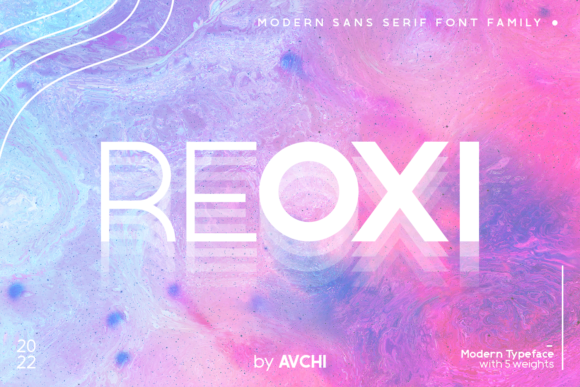
Dive into the realm of Reoxi, a sans serif font that exudes both coolness and modernity. Its minimalist and neat design makes it the perfect choice for those seeking a font that seamlessly blends simplicity and sophistication. Allow your creativity to soar as you utilize Reoxi to craft visually stunning logos, tech creations, and an array of other captivating designs.
With Reoxi, the possibilities are limitless. Its clean lines and legible characters make it ideal for crafting logos that command attention and leave a lasting impression. Whether you're designing for a tech startup, a fashion brand, or a creative agency, Reoxi will elevate your designs to new heights.
Step into the future with Reoxi, a font that embodies the spirit of innovation. Its sleek and contemporary design complements modern designs, making it the perfect choice for tech-savvy individuals and businesses. From sleek app interfaces to cutting-edge website designs, Reoxi will add a touch of sophistication and modernity to your creations.
Reoxi's versatility extends beyond logos and tech creations. Its adaptability makes it suitable for various design projects, including branding, packaging, and marketing materials. With Reoxi, you can create cohesive and visually appealing designs that captivate your audience and leave a lasting impression.
Embrace the power of Reoxi and unlock your creative potential. Its minimalist charm and adaptability make it the perfect font for those seeking a blend of simplicity and sophistication. Download Reoxi today and embark on a design journey like never before.